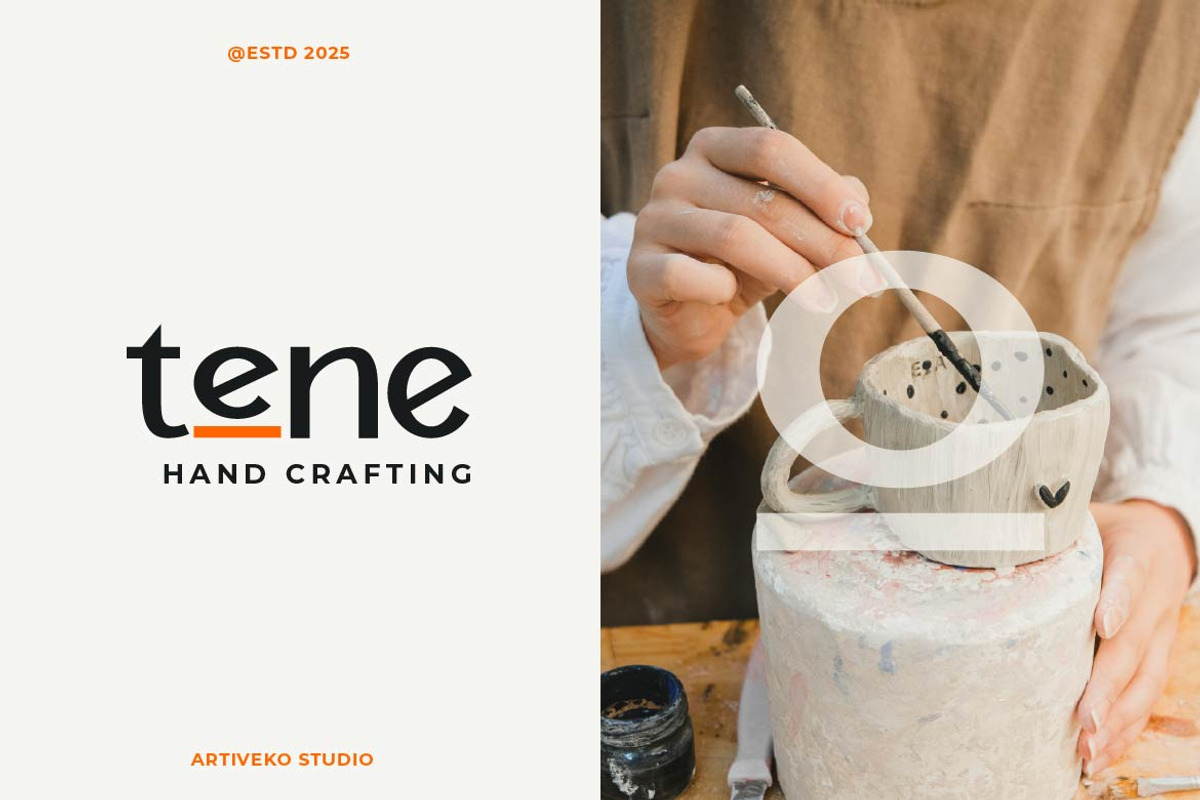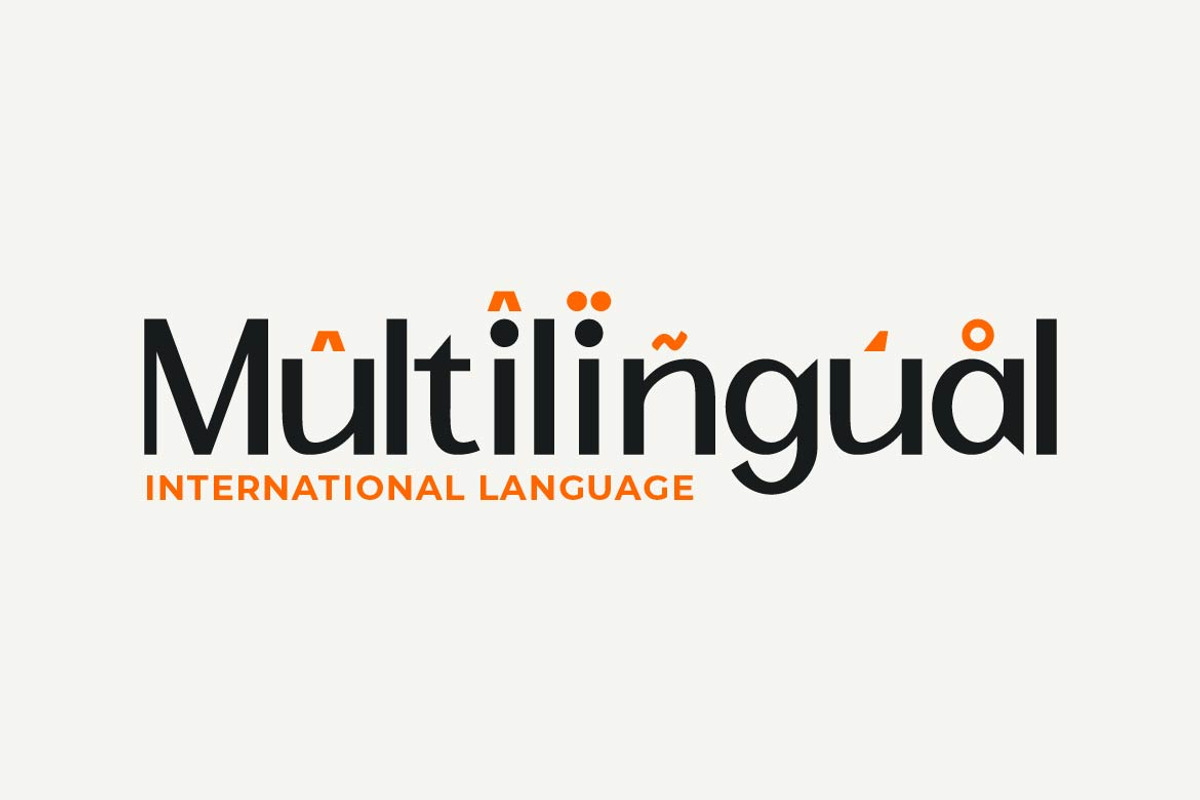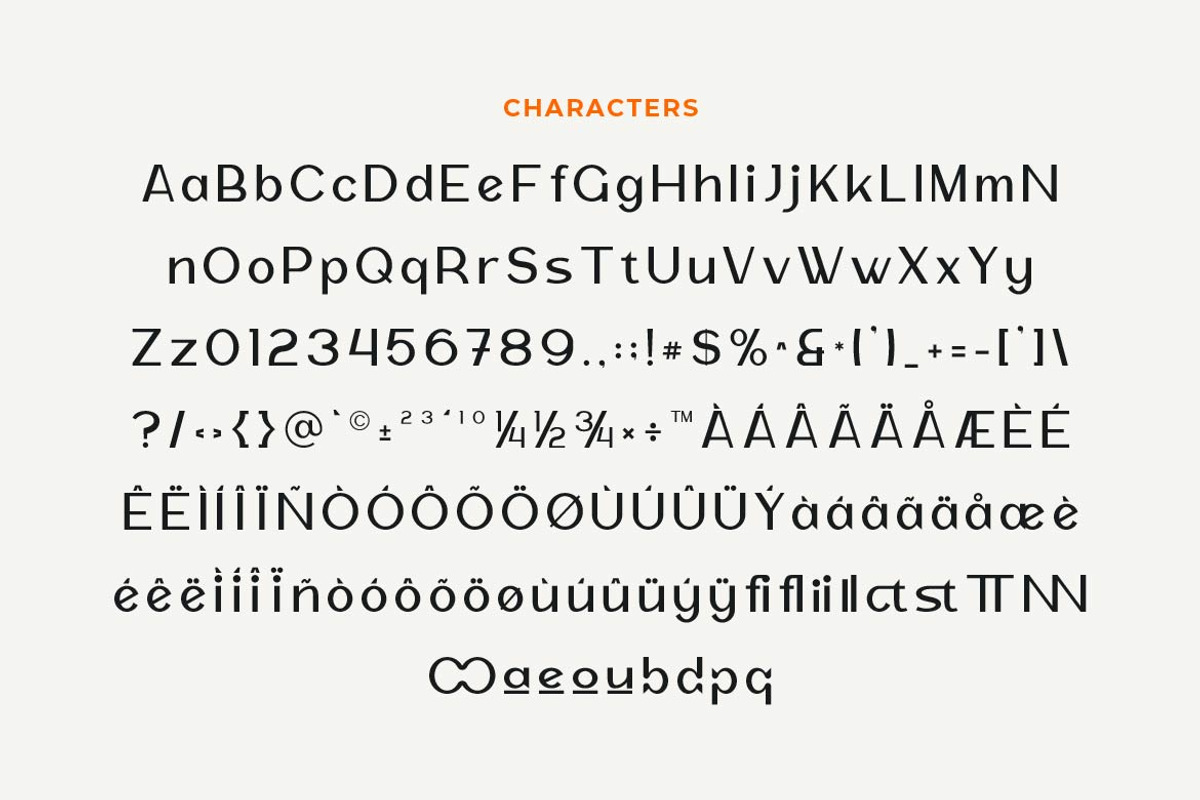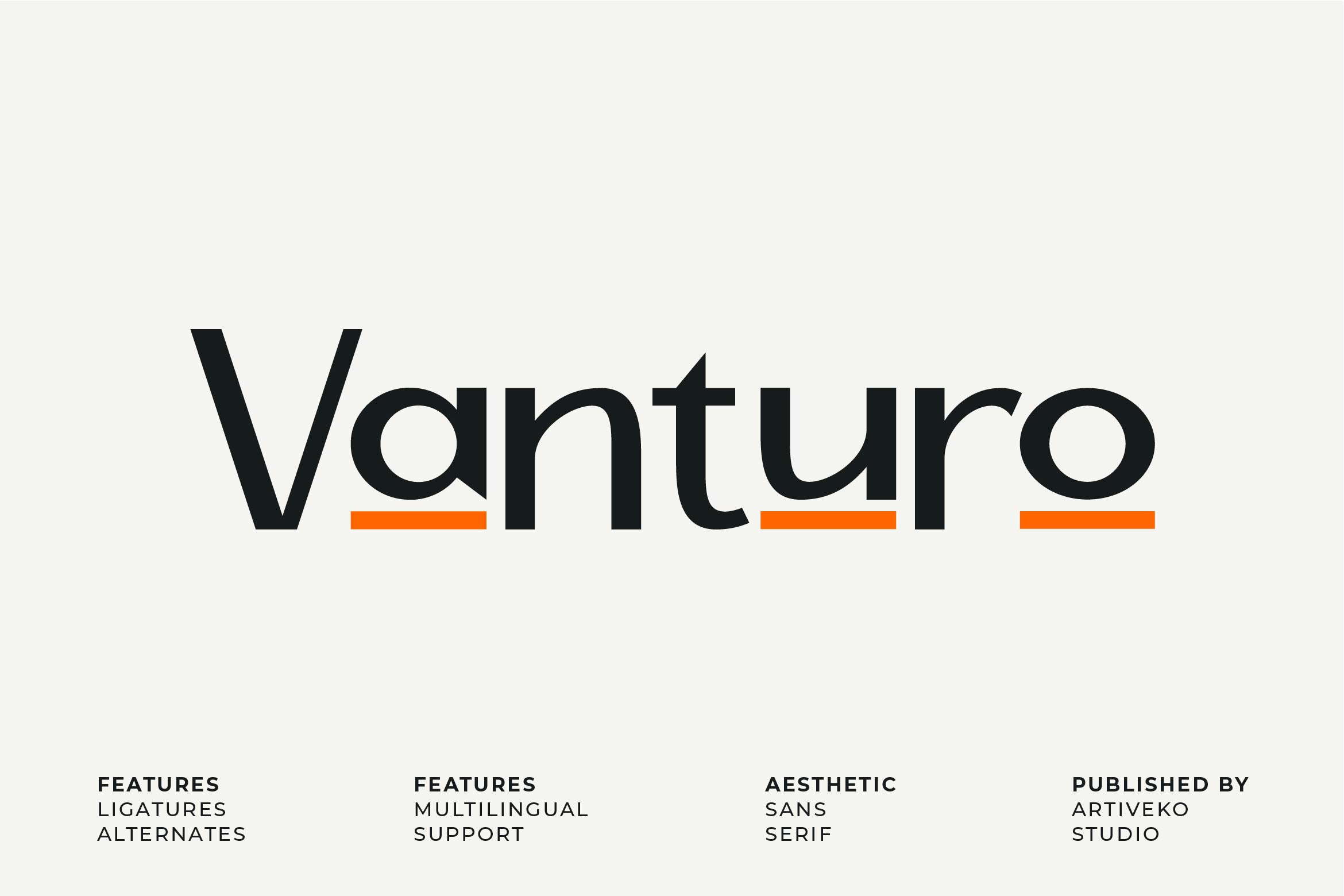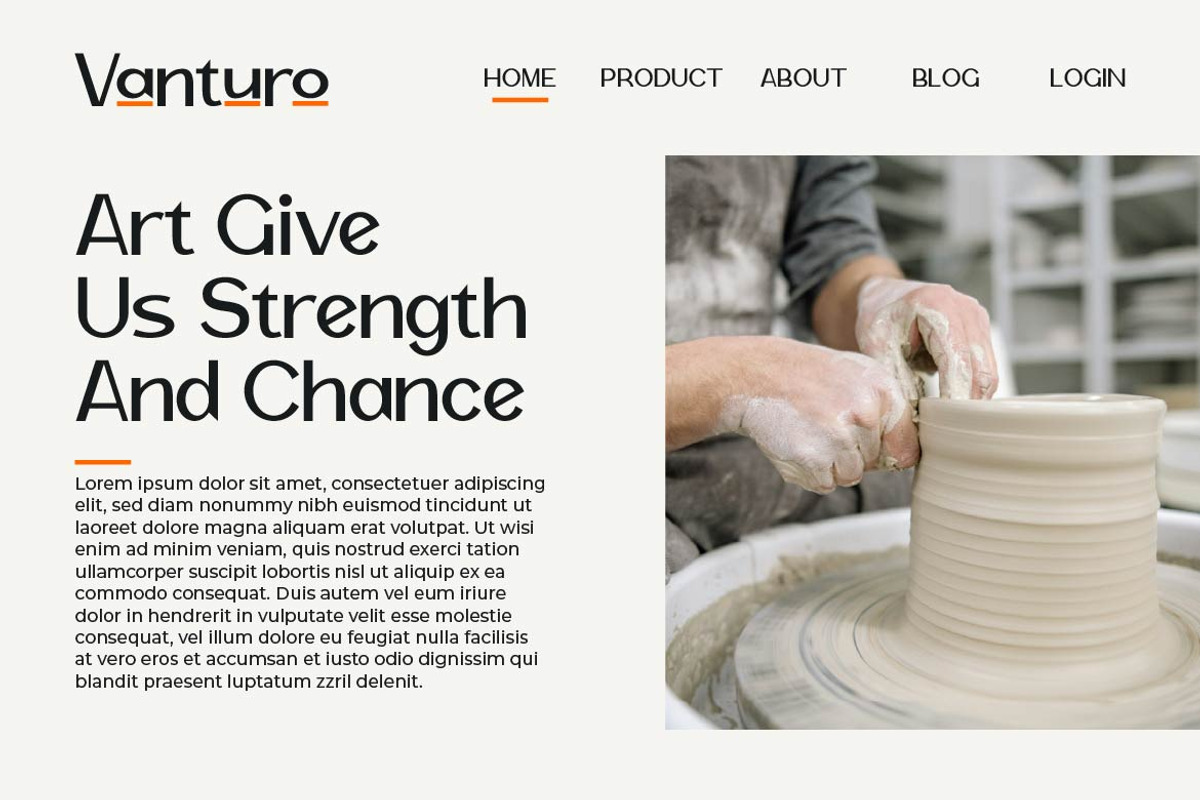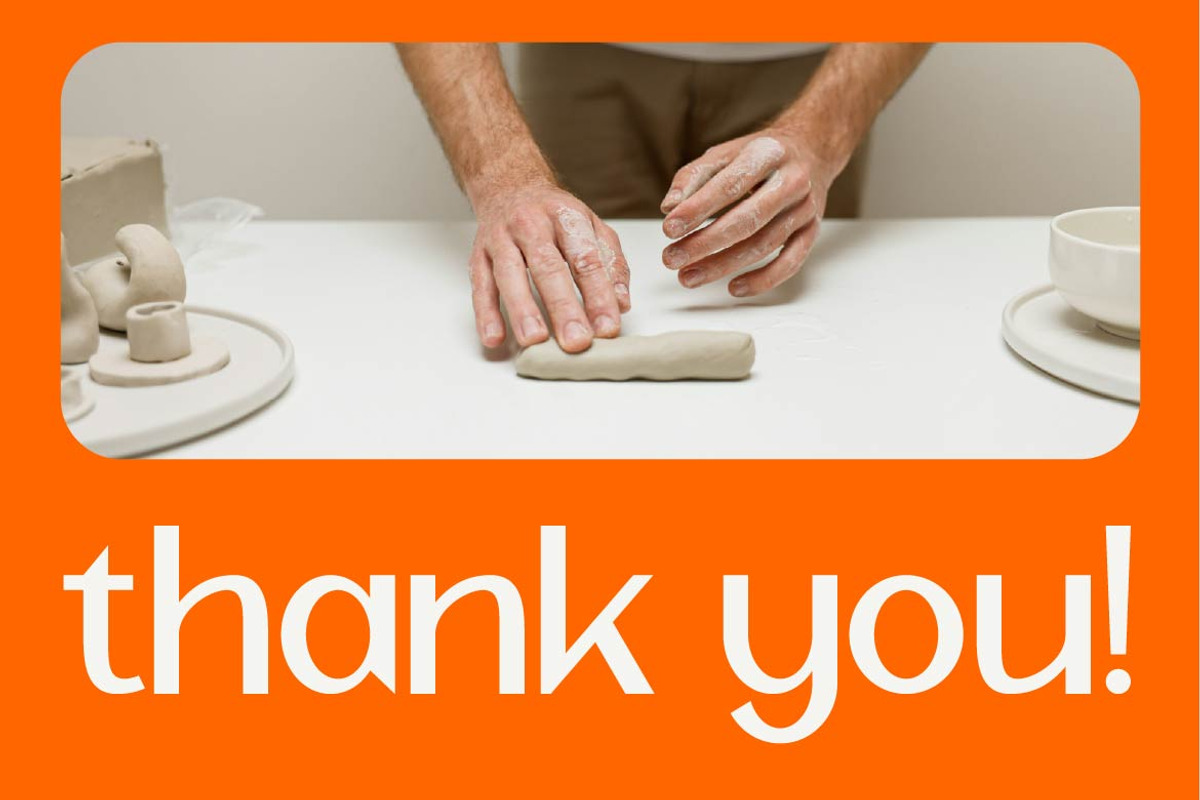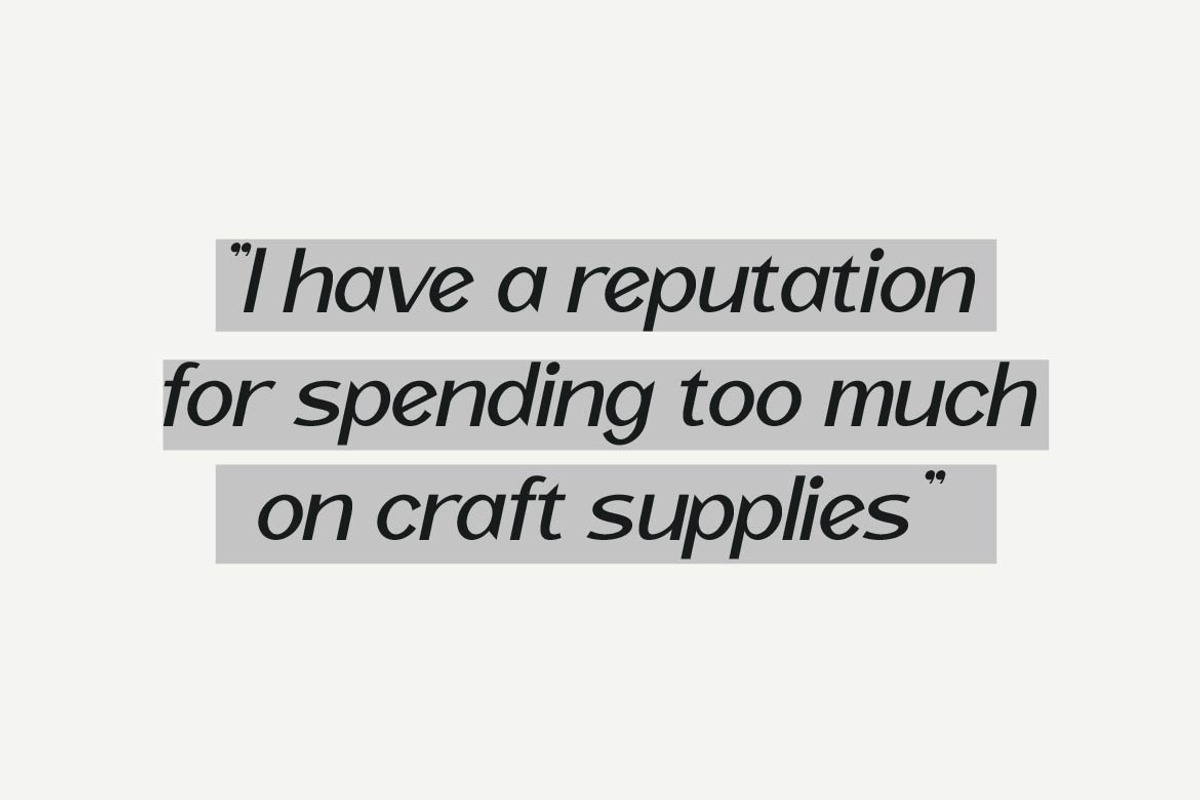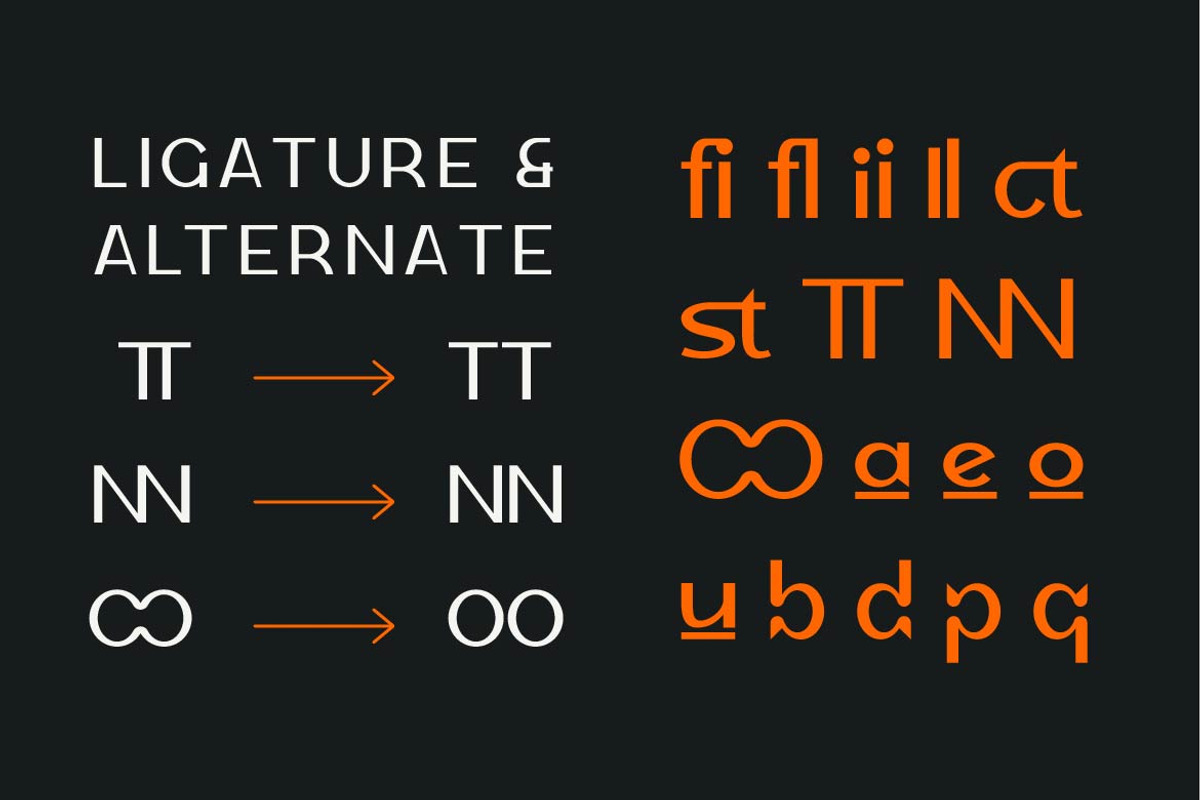
Vanturo Creative Sans Font
Vanturo is a daring and artistic sans serif font that redefines modern typography with a twist of originality. Featuring clean lines, experimental curves, and subtle quirks, Vanturo brings fresh energy to logos, branding, posters, packaging, and editorial layouts that need to make a statement.